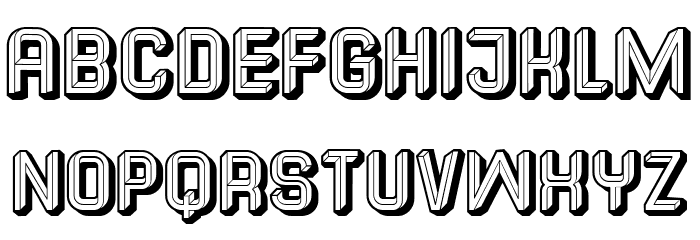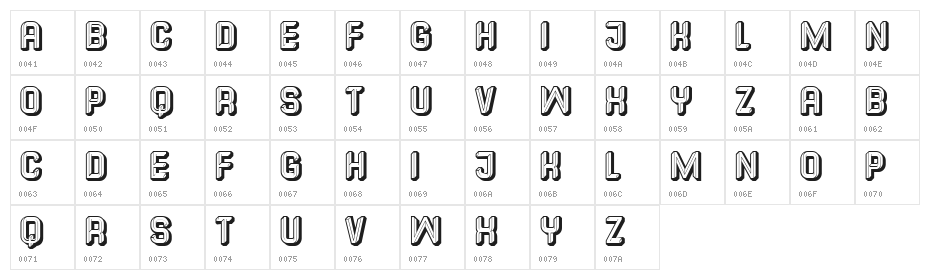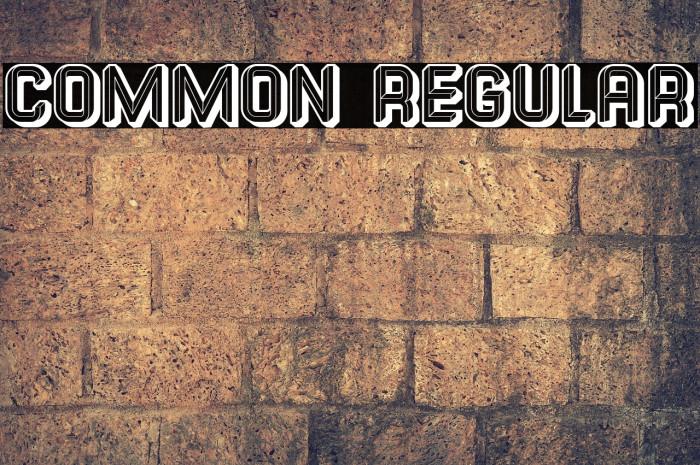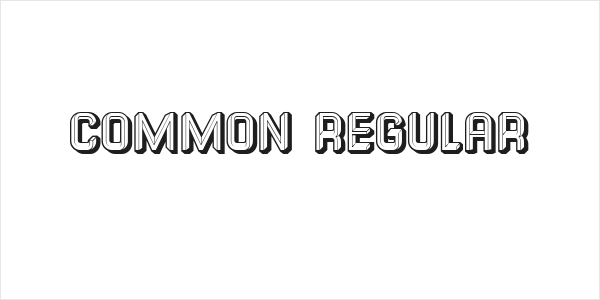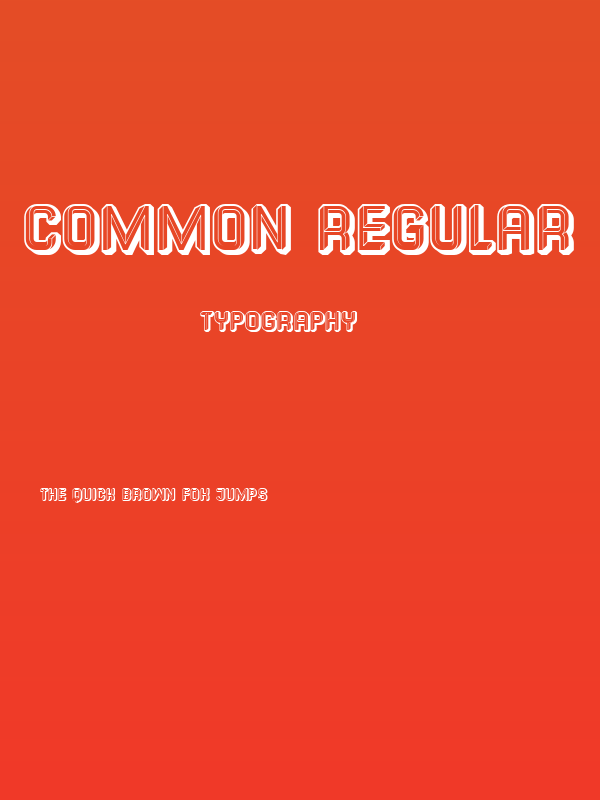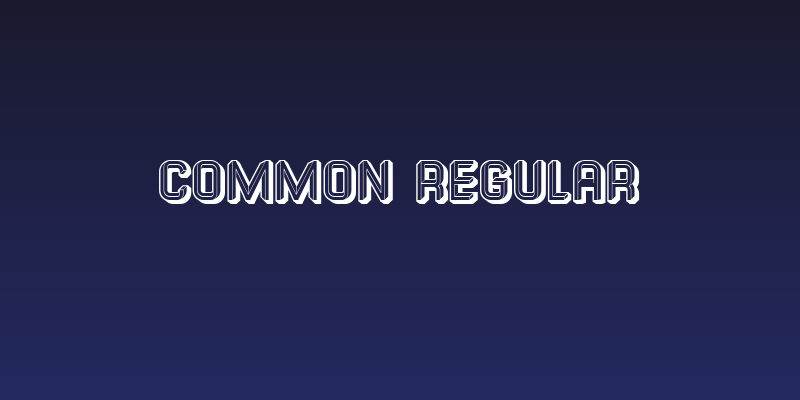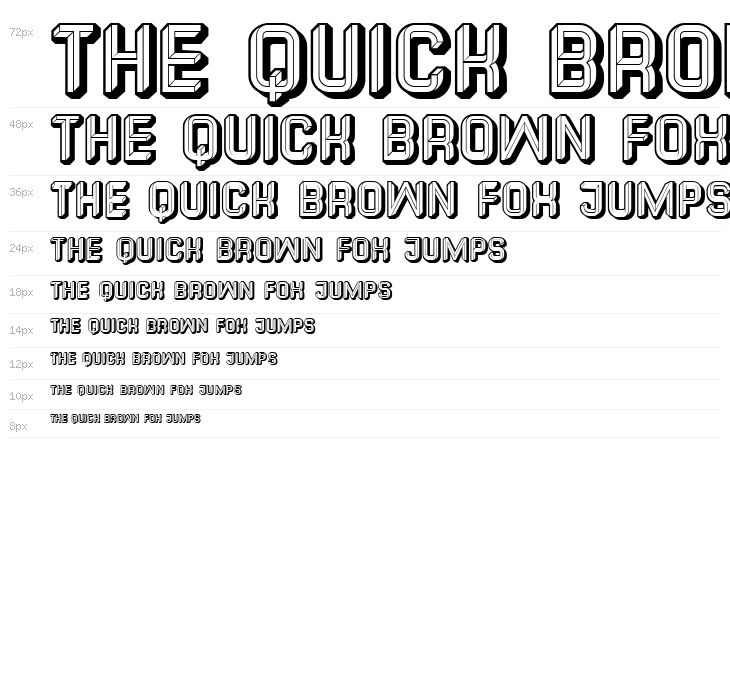
Common Regular Font
Common Regular Description
This font features a bold, three-dimensional design with a strong, impactful presence. The letters are outlined with a thick black shadow, creating a striking visual effect that makes each character stand out. The geometric shapes of the letters are consistent and uniform, giving the font a modern and structured appearance. The uppercase letters are particularly prominent, with sharp angles and clean lines that enhance the overall boldness. This font is ideal for projects that require a strong visual impact, such as posters, headlines, and branding materials.